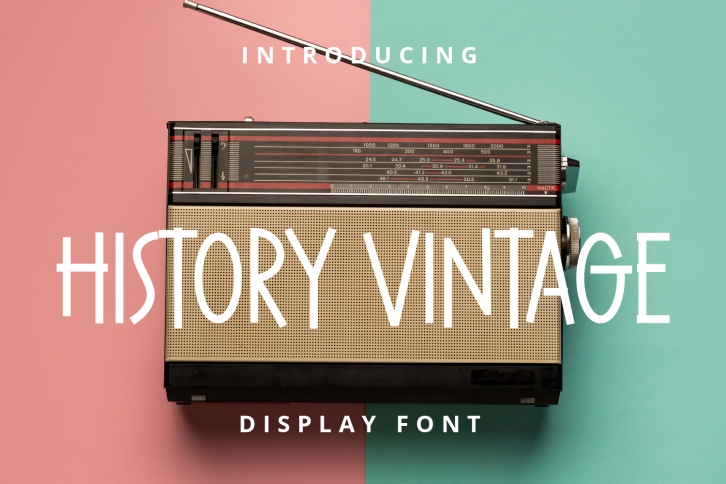
History Vintage is a cool and casual display font. Its natural and unique style makes it incredibly fitting to a large pool of designs. The only limit is your imagination!